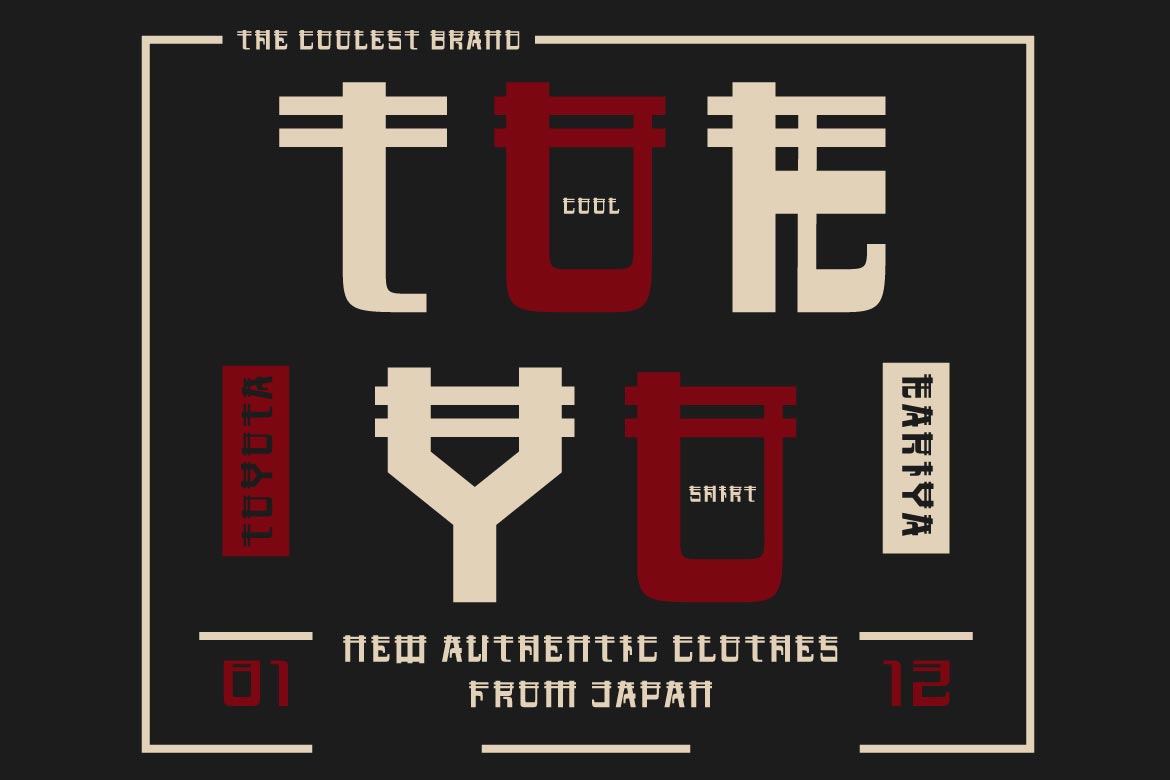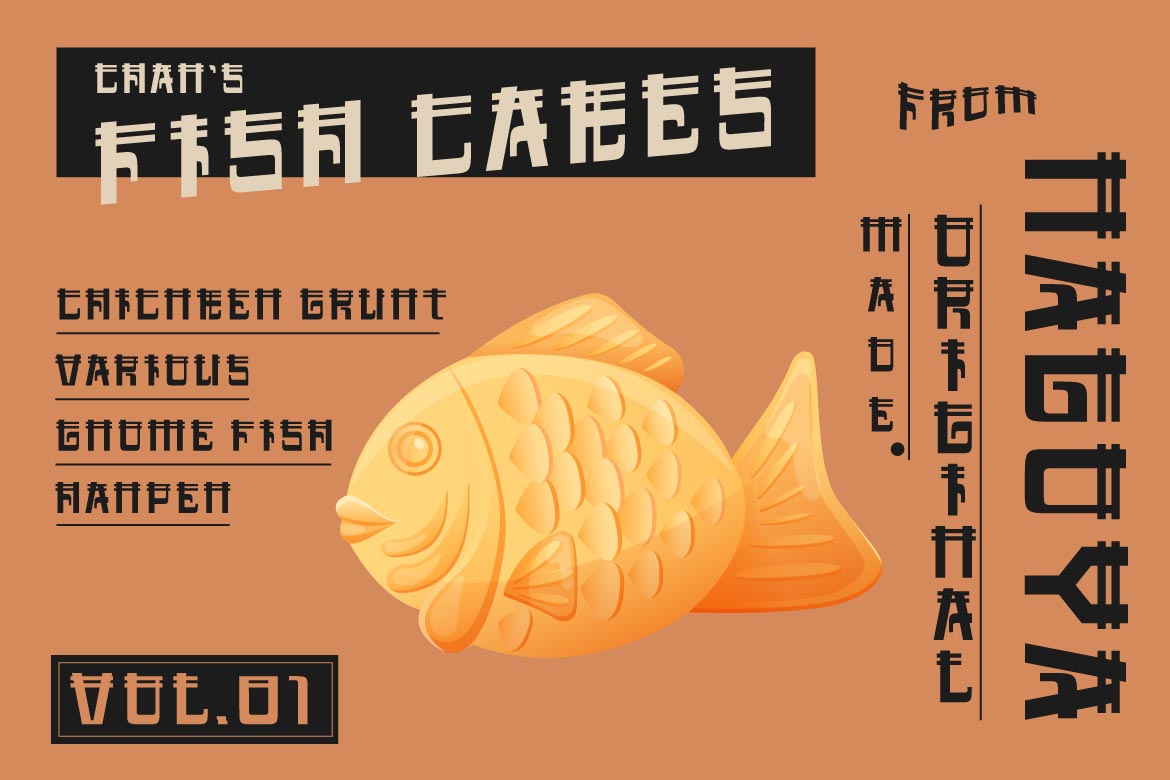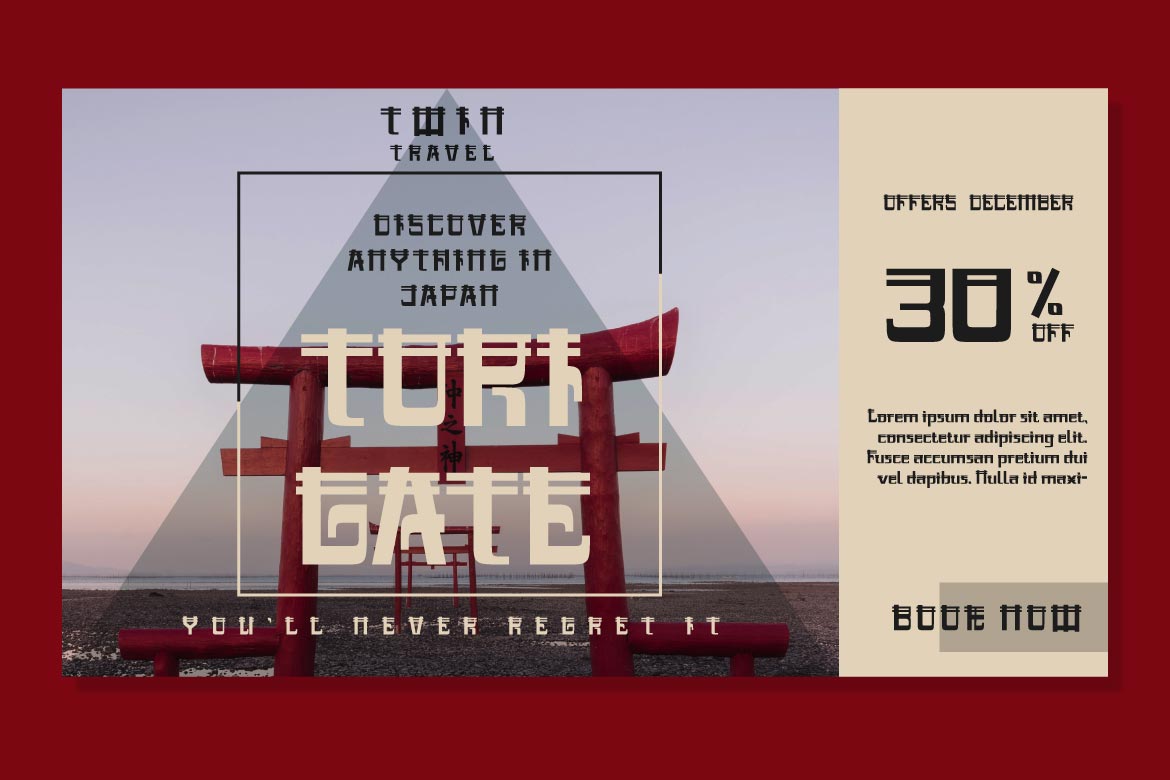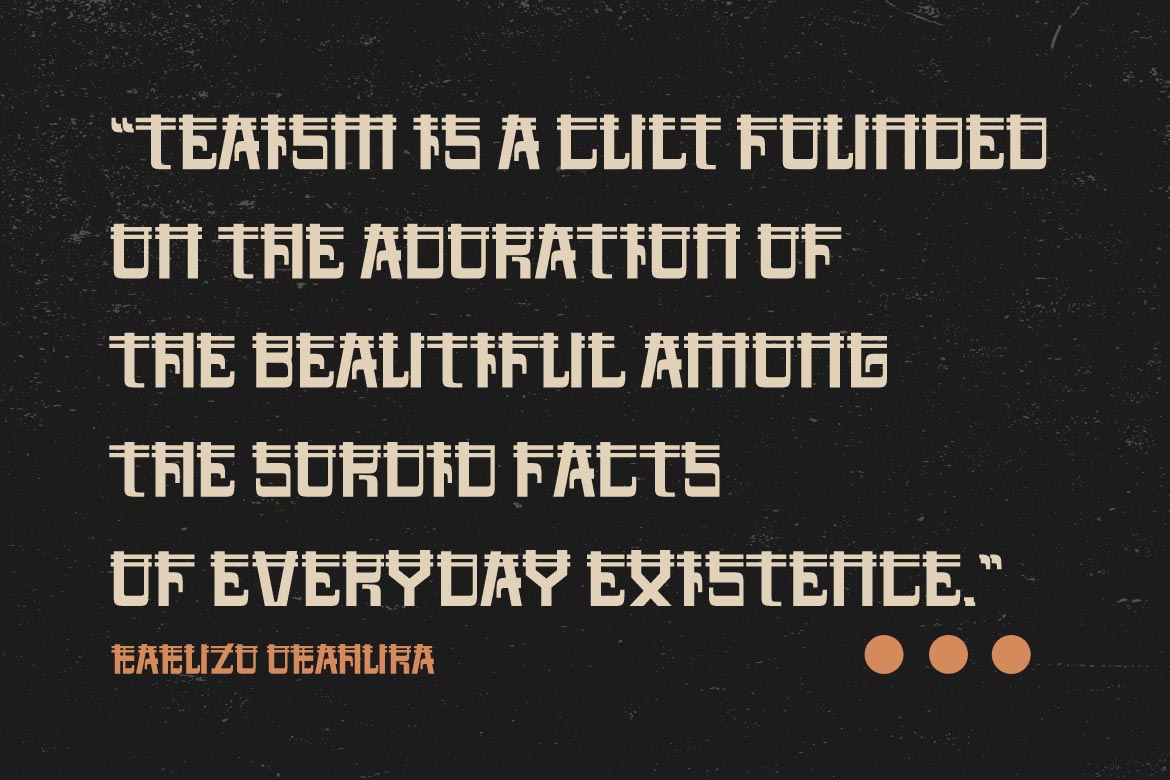
Kitetsu Font
Kitetsu Display Font
It’s a spoof Japanese typeface that we created especially for those of you who need writing for a Japanese-themed design. Of course, this typeface is also very attractive when used for other graphic display purposes. If you choose this typeface, your project will leave an impression on your audience because of its unique, abstract, and different shape, which will set it apart from the rest.
Logotypes, food banners, branding, brochure, posters, movie titles, book titles, quotes, and more may all benefit from this font.
Of course, using this font in your various design projects will make them excellent and outstanding; many viewers are drawn to the striking and unusual graphic display. Start utilizing this typeface in your projects to make them stand out.